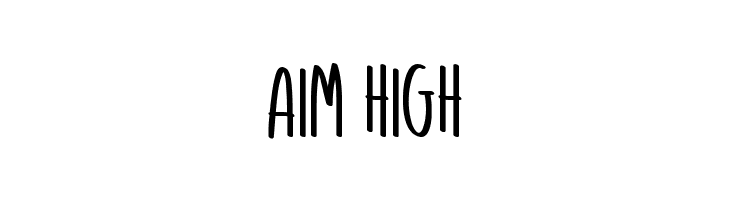
A bold, high-contrast font with a modern, geometric style.
A high-contrast, elegant serif font with refined strokes and classic flair.
A high-contrast serif font with elegant, sharp serifs and a modern aesthetic.
A high-contrast serif font with elegant, sharp serifs and a modern classic style.
A thin, elegant serif font with high contrast and a modern touch.
A bold, angular font with a medieval-inspired design.
A dynamic and expressive font with sharp, angular strokes and a sense of motion.
A modern, elegant handwritten script with fluid, cursive strokes.
A playful, whimsical font with a modern and decorative style.
An elegant, flowing script font with thin, delicate lines and graceful curves.
A fluid and elegant script font with a cursive, handwritten style.
An elegant, decorative script font with intricate uppercase and graceful lowercase letters.
An elegant script font with decorative swirls and medium contrast, perfect for romantic designs.
A decorative and modern typeface with playful uppercase and straightforward lowercase letters.
An elegant, flowing script font with elongated, sweeping strokes.
A bold, dynamic script font with flowing strokes and a lively appearance.
A dynamic and elegant script font with fluid, sweeping letterforms.
A dynamic and flowing script font with elegant, fluid letterforms.
A classic serif font with elegant, sharp serifs and slight stroke contrast.
A playful, hand-drawn style font with bold, irregular strokes.
A bold, handwritten font with a playful and artistic style.
An elegant, flowing script font with a cursive, handwritten style.
An elegant, cursive script font with flowing, handwritten strokes.
An elegant, cursive font with ornate swirls and flourishes.
An elegant script font with flowing, cursive style and intricate swashes.
A bold, playful handwritten font with thick, rounded strokes.
A dynamic cursive script font with elegant, flowing strokes.
A modern serif font with sharp angles and clean lines.
A modern, geometric font with clean lines and balanced spacing.
A bold, playful font with rounded geometric shapes and a quirky style.
A playful, bold font with rounded edges and consistent thickness.
A playful, rounded font with bold, smooth curves and a modern, whimsical style.